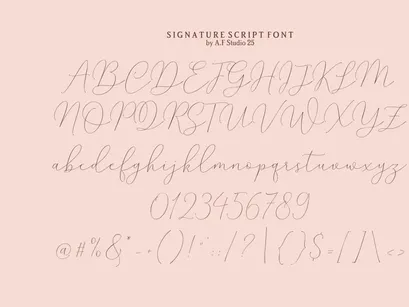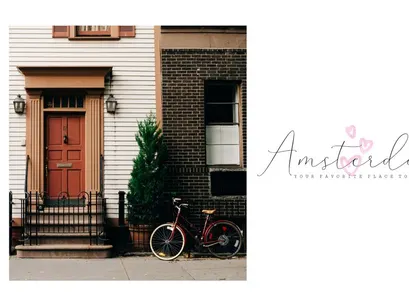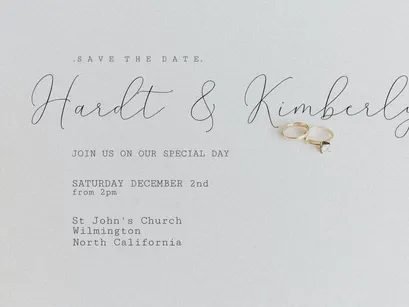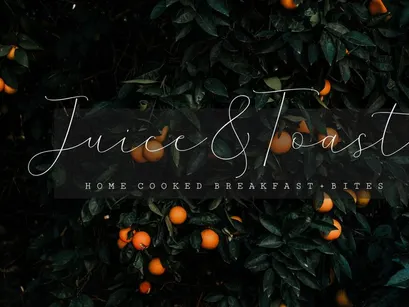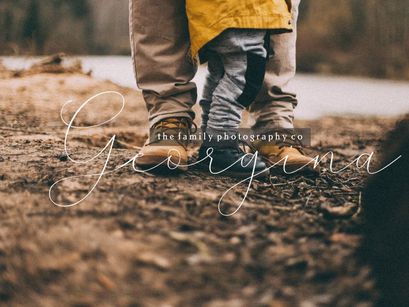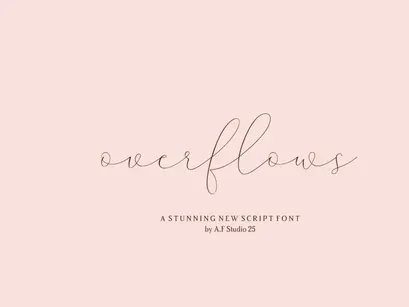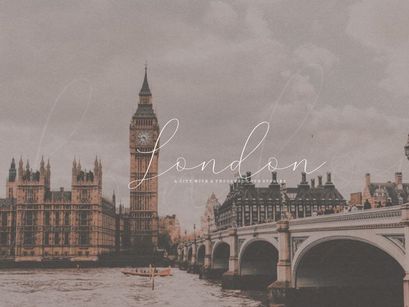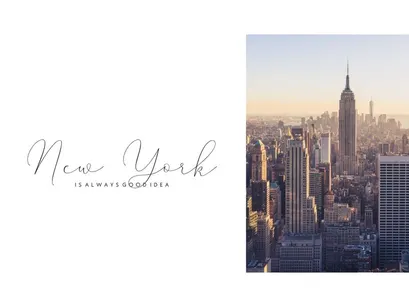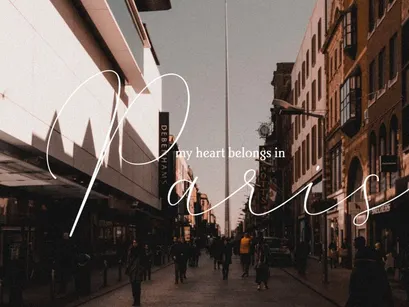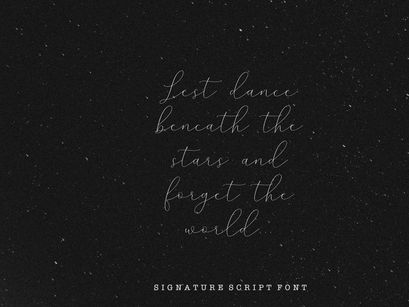
Overflows - Signature Font, Script Font, Procreate Font, Calligraphy Font, Handwritten Font, Wedding Font, Cricut Font, Cursive Font, Canva.Premium
Overflows - A Stunning New Script Fonts, Signature Fonts, Script Fonts, Procreate Fonts, Calligraphy Fonts, Handwritten Fonts, Wedding Fonts, Cricut Fonts, Cursive Fonts, Canva.